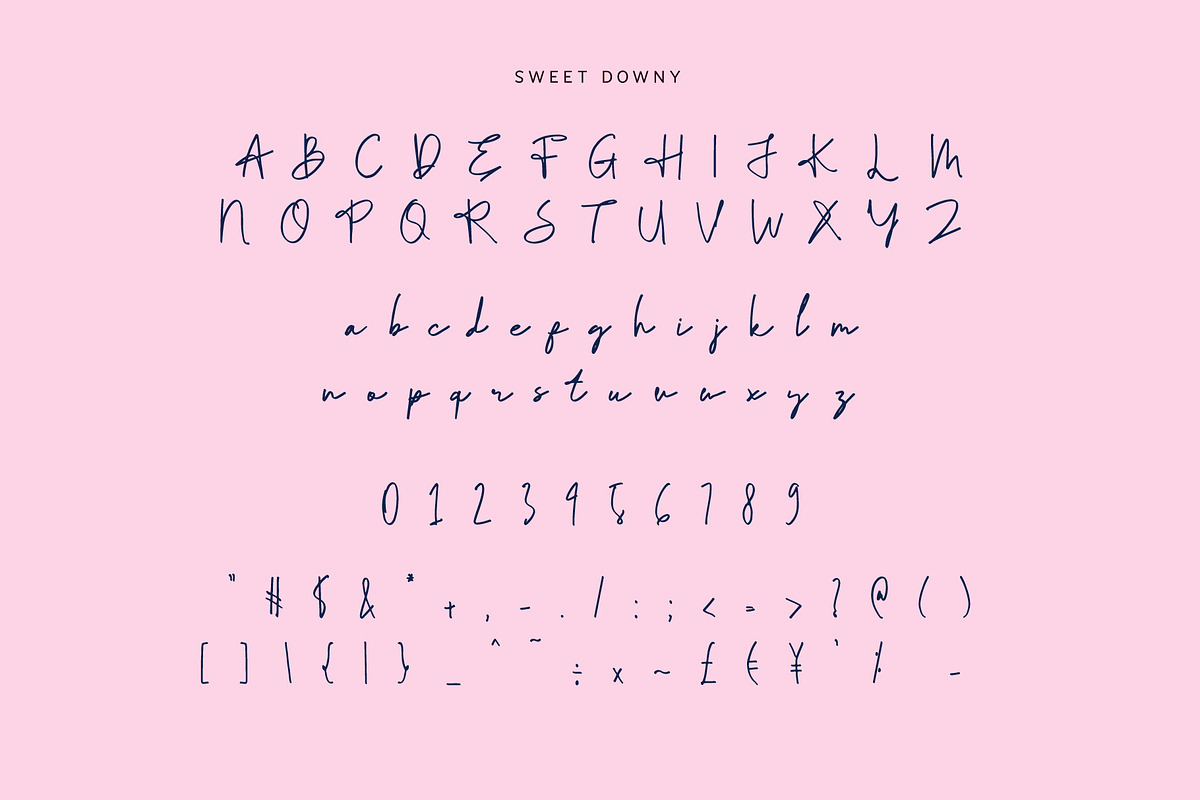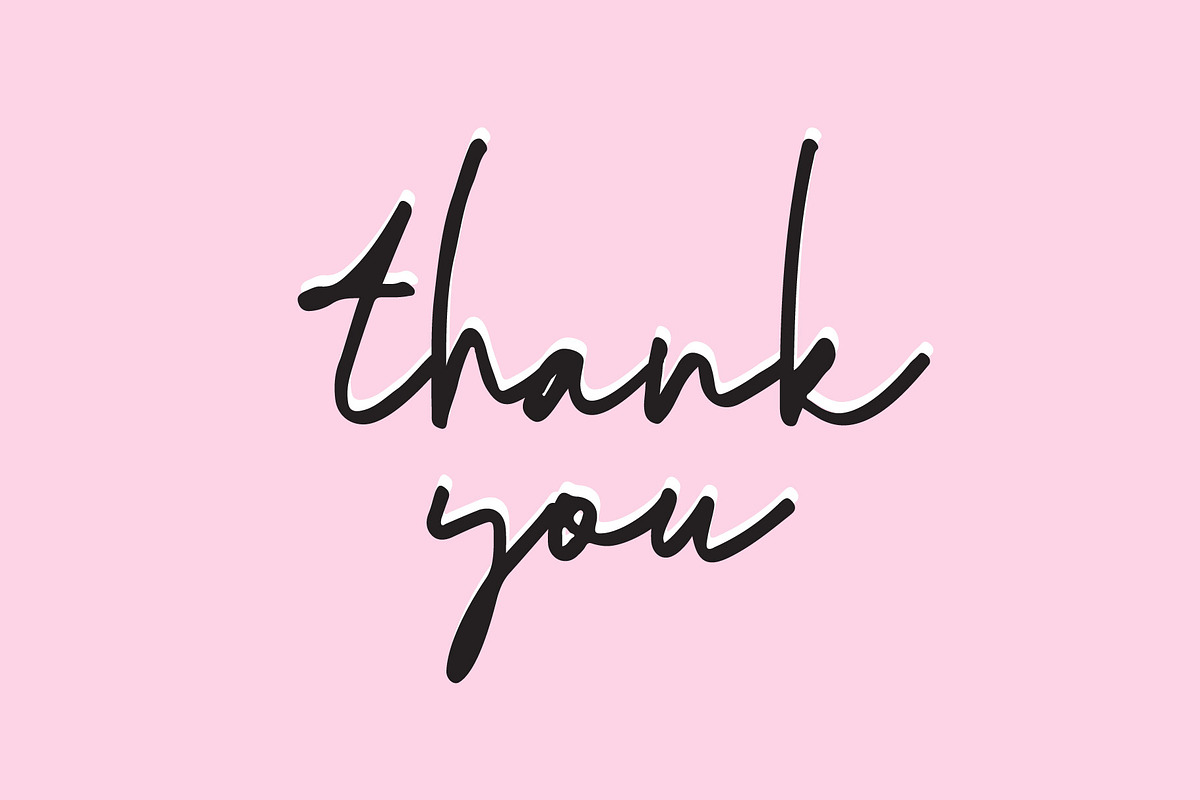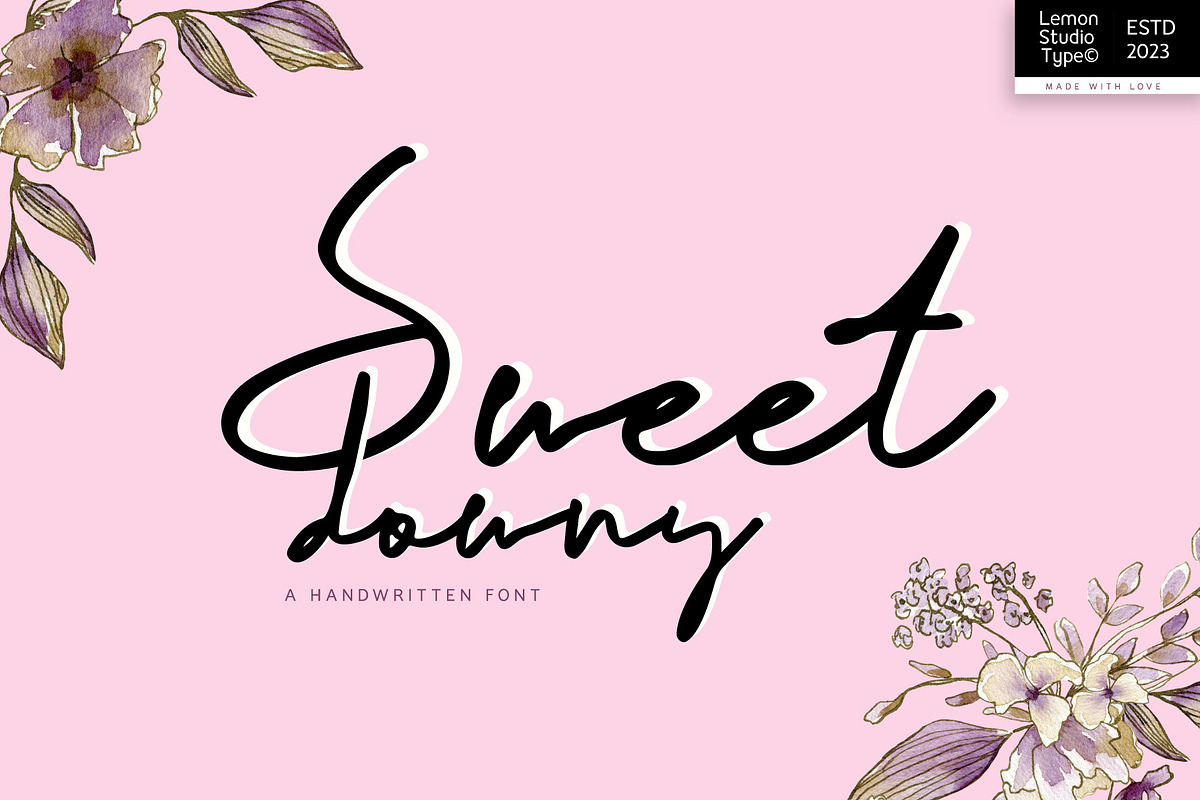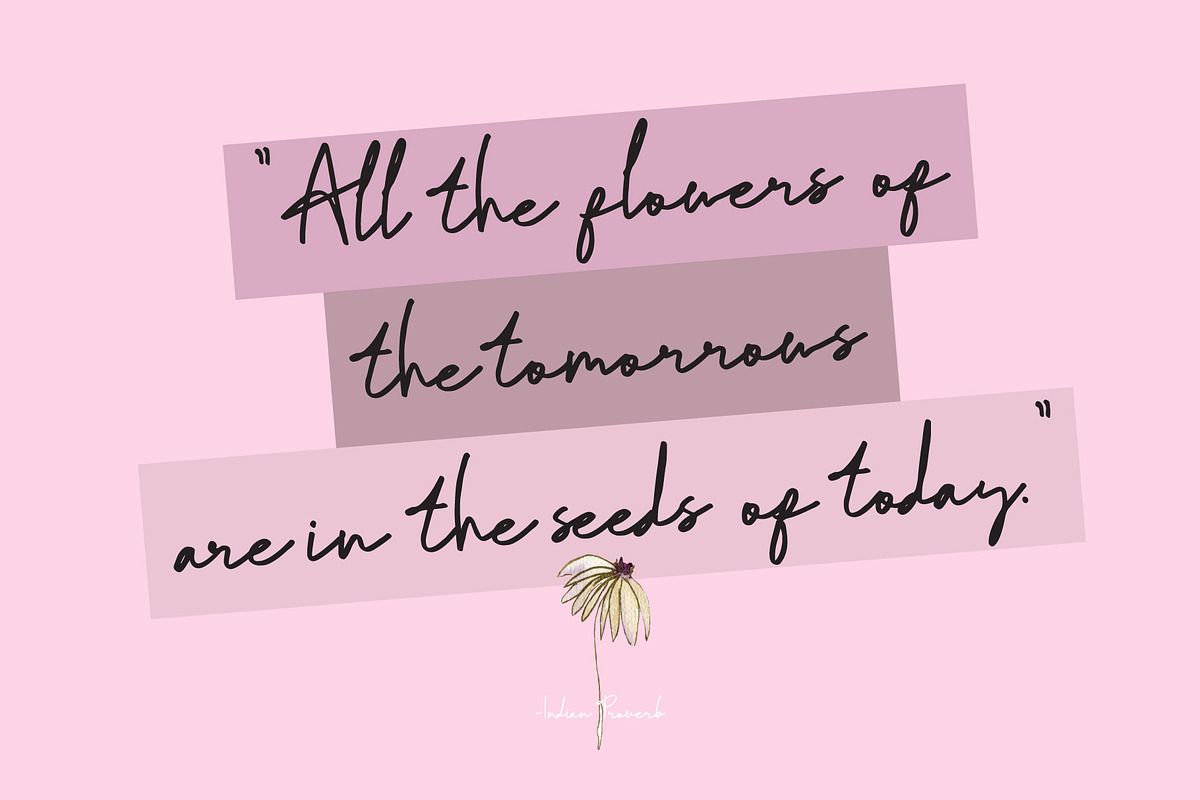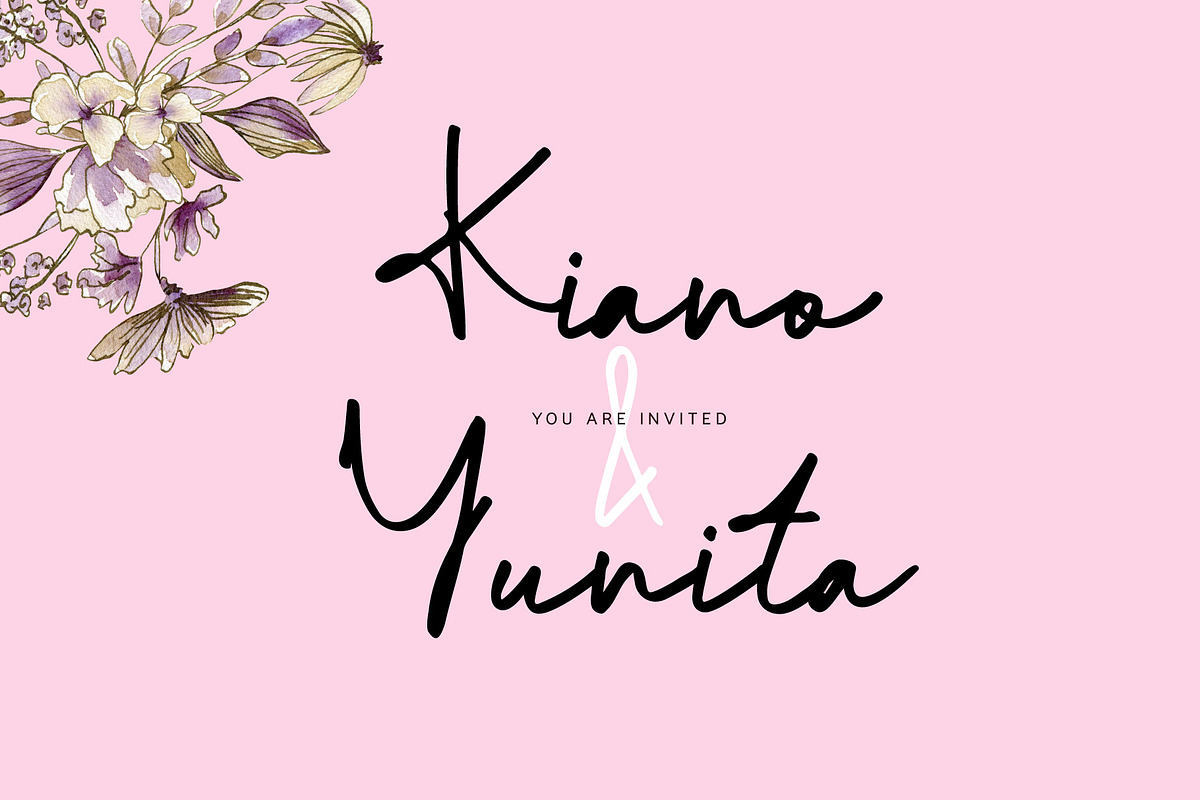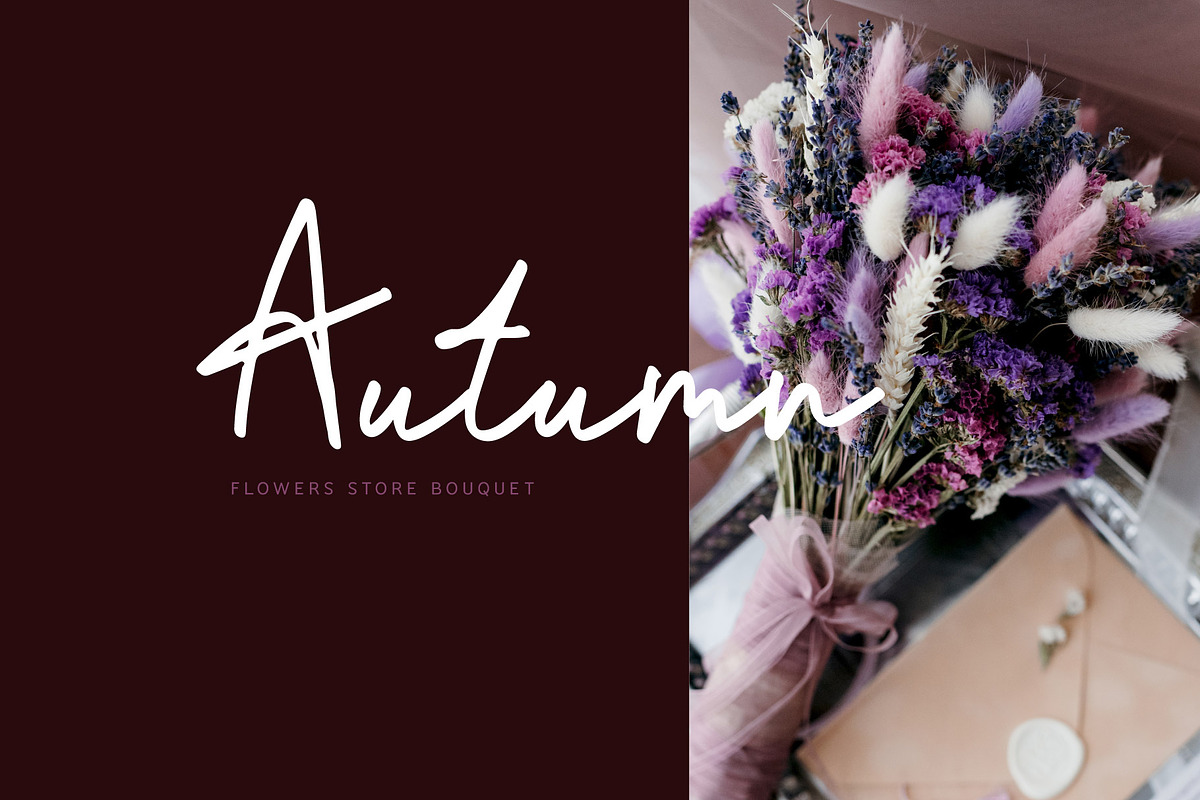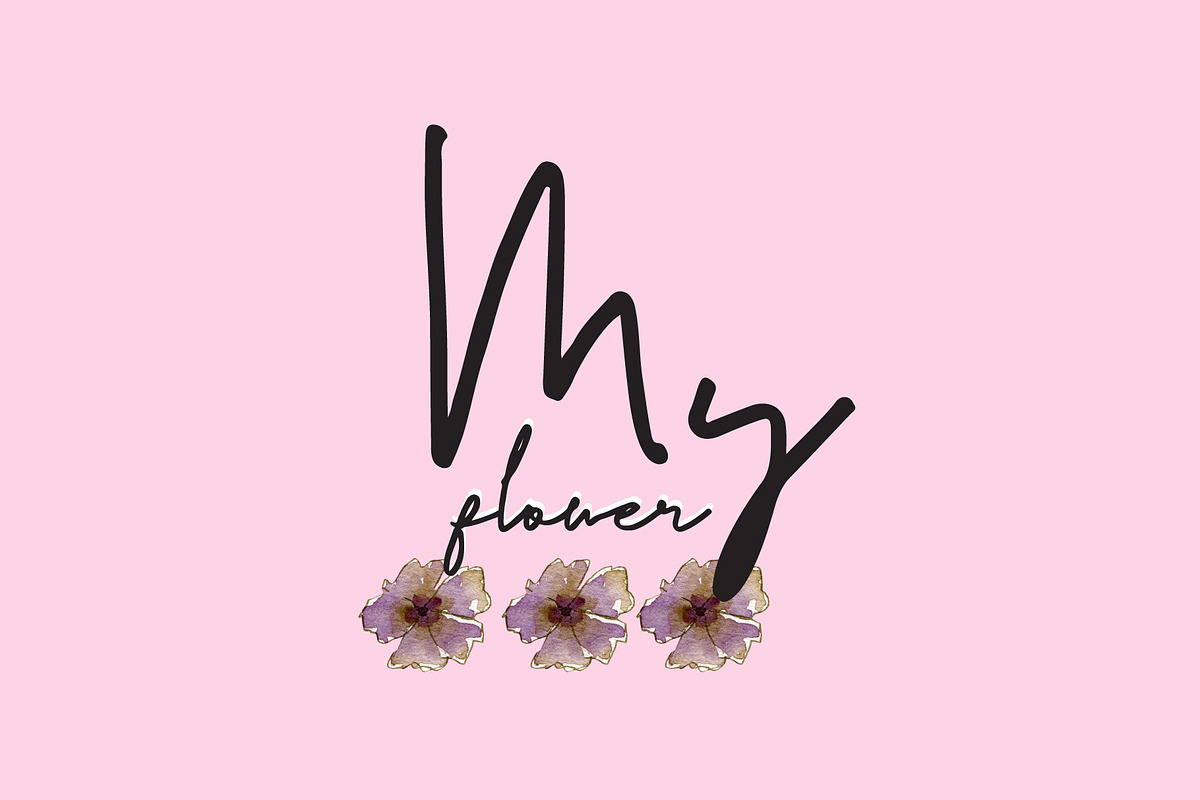
Sweet Downy - Signature Handwritten
Sweet Downy is a chic handwritten font. This is a very messy and fun signature. Perfect for your custom design projects. Such as titles, wedding invitations, logotypes, labels and more.